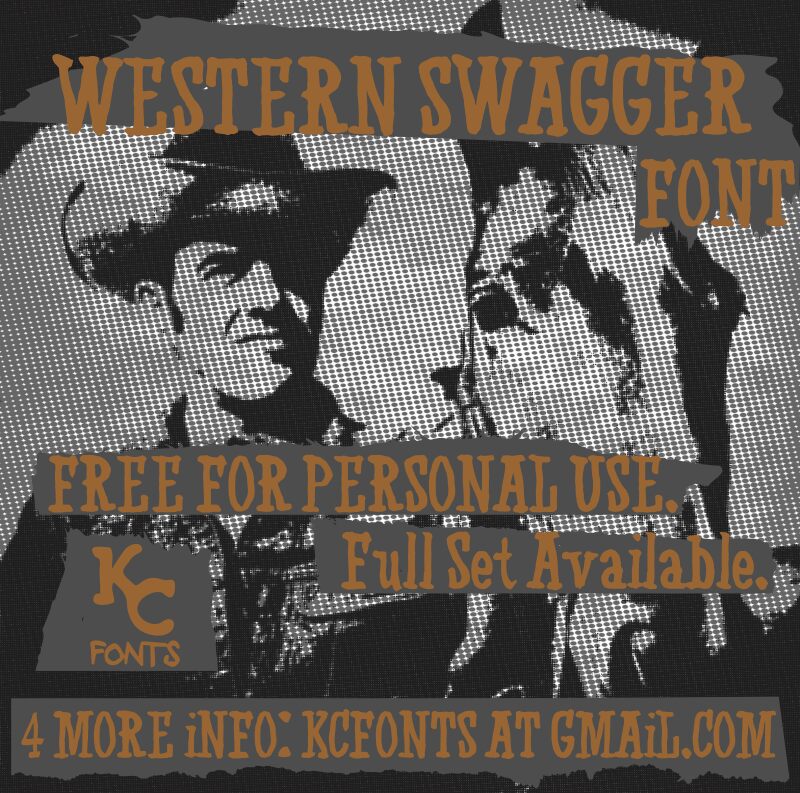
Western Swagger by Kevin Christopher of KC Fonts is a free Western display font with tall, dark letters and the rough-cut silhouette of old frontier posters. Its uneven slab serifs, pinched joins, and slightly wavering edges keep the capitals from looking mechanically typeset.
It can move between saloon branding and theatrical entertainment because the broad shapes read like hand-painted storefront lettering. The same frontier character suits barbecue packaging, country music posters, and rodeo merchandise, where the lettering can become part of a rustic product identity rather than a neutral label.